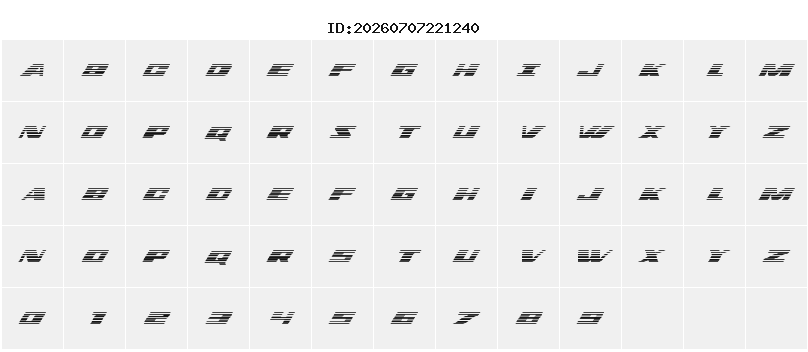
Dassault Gradient Italic Preview
• Font Name: Dassault Gradient Italic
• Full Font Name: Dassault Gradient Italic
About Dassault Gradient Italic.ttf
Dassault Gradient Italic.ttf is a modern, elegant sans-serif font designed for ultimate readability and visual harmony. Perfect for branding, headlines, web design, and print materials.